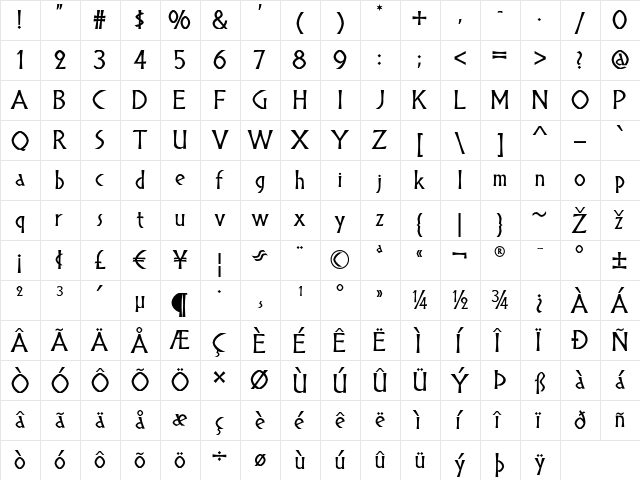
Blandford Woodland NF Regular
Design Context for Blandford Woodland NF Typeface
Blandford Woodland NF echoes the hand-painted signage and woodblock typography of the American frontier, with a warm, rugged personality.
A natural fit for craft spirits, ranch branding, rodeo events, and Americana-inspired design work.
Font Pairing: Combine Blandford Woodland NF with a simple slab or neutral sans — period-accurate companions reinforce the vintage feel without competing for attention.
Pro Tip: Use Blandford Woodland NF for short, impactful bursts of text — it shines in poster headlines and product names rather than extended copy.